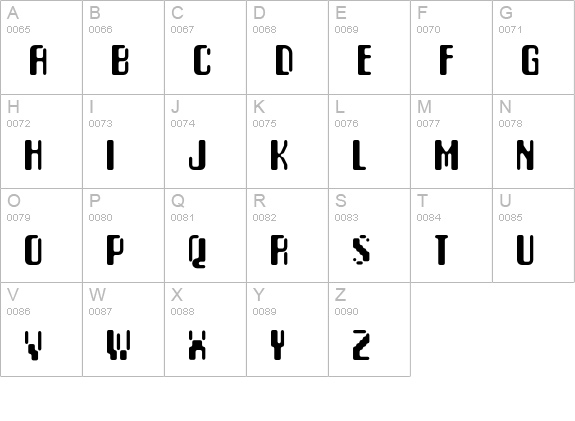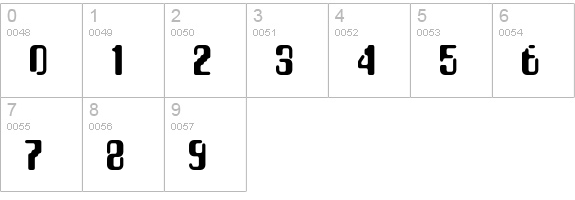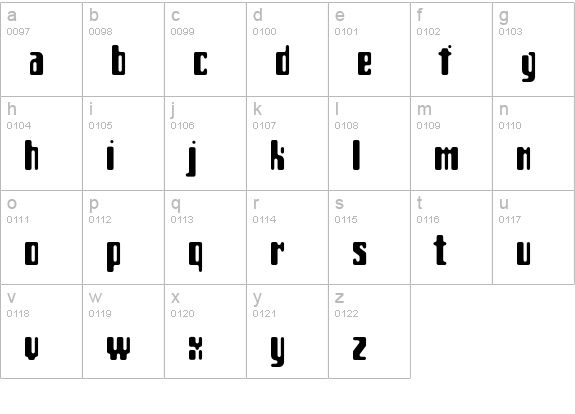
Matica-Supernormal font is a captivating and modern typeface that exudes a sense of elegance and sophistication. With its sleek lines and stylish curves, this font is perfect for adding a touch of class to any design project. The unique characters of Matica-Supernormal font will make your text stand out and grab the attention of your audience. What sets Matica-Supernormal font apart is its versatility and adaptability to various design styles and purposes. Whether you're creating a logo, a poster, a website, or any other graphic design, this font will elevate your work to a whole new level. The best part? Matica-Supernormal font is completely free to download at FontsMarket.com. So you can enhance your projects with this stunning font without having to worry about any additional costs. Don't miss out on the opportunity to elevate your designs with the sleek and stylish Matica-Supernormal font today!